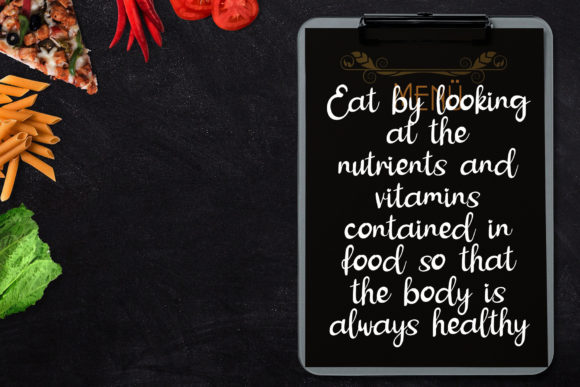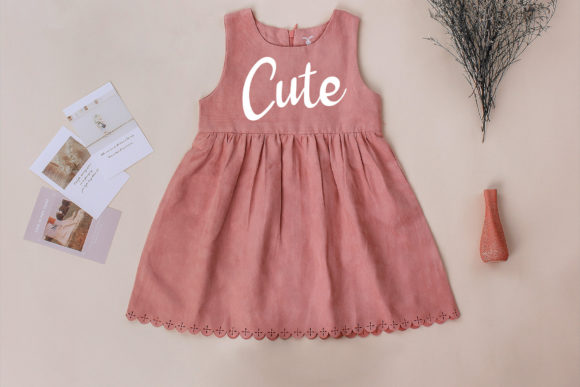
Rafael Font
db-ku.com - Script & Handwritten -- Rafael is a unique and elegant font specially designed just for you. This font is made with a professional hand touch and is perfect for your projects. This font is very suitable for use in your work projects, all greeting cards from wedding invitation cards, birthdays, all types of parties. This font is also very suitable for use in your creative ideas for school assignments or other important events. Apply this font with your creative ideas to make it look better. This font is very carefully crafted and it is accessible with all glyphs without any additional application.